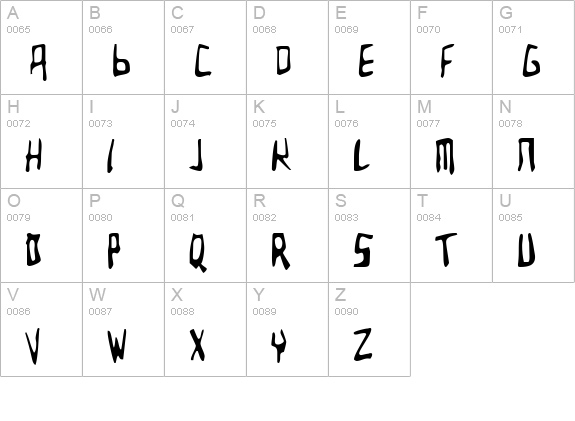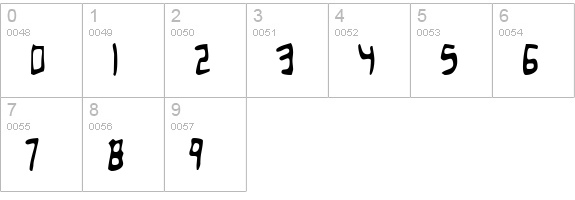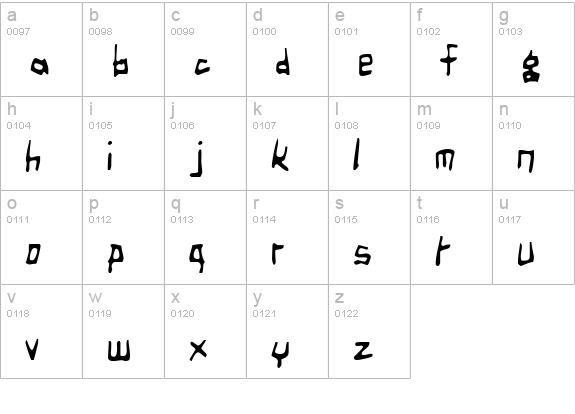
Birdland Aeroplane Font Details
Birdland Aeroplane font is a whimsical and playful typeface that exudes a sense of lightness and airiness. Its unique combination of rounded edges and bold strokes gives it a distinctive look that is both modern and fun. The font is perfect for adding a touch of personality and charm to any design project, whether it's a poster, logo, or social media graphic. The best part about Birdland Aeroplane font is that it is completely free to download at FontsMarket.com. This means that you can easily access this delightful font and use it in your projects without any cost. With its cheerful and energetic vibe, Birdland Aeroplane font is sure to bring a sense of joy and creativity to your designs. Download it today and let your imagination take flight!